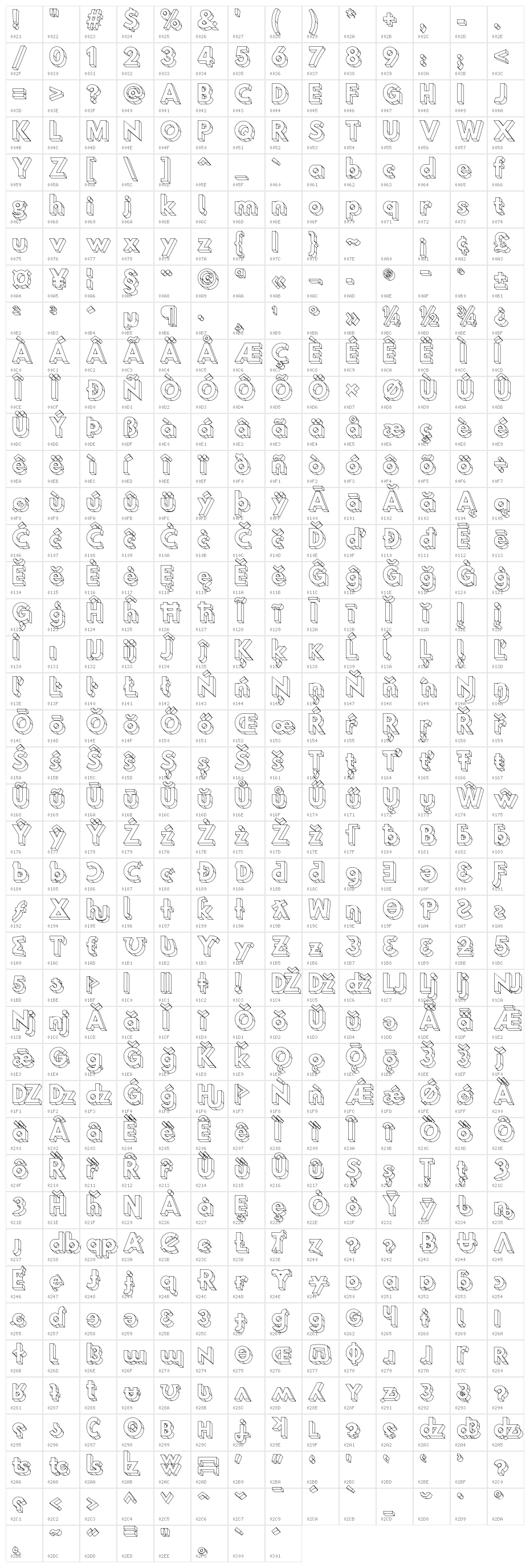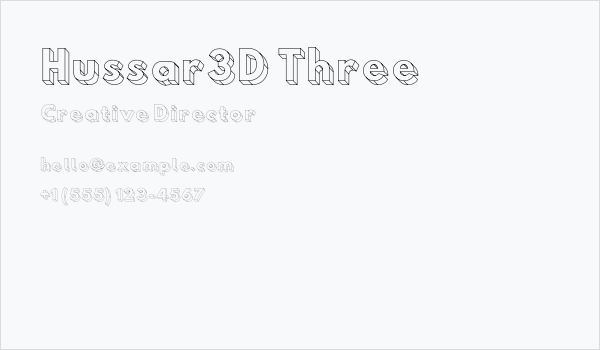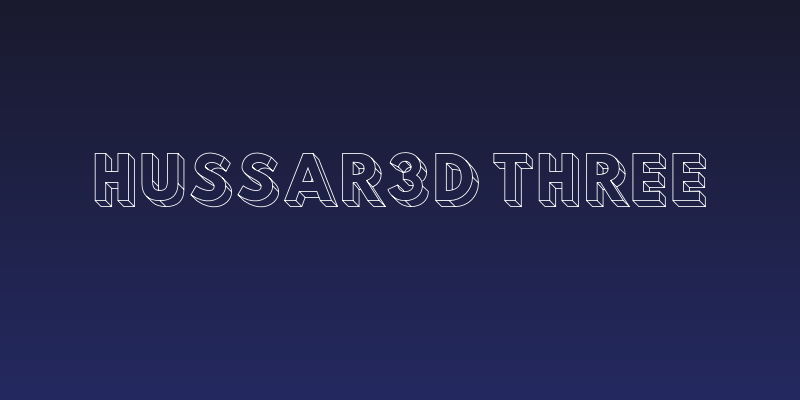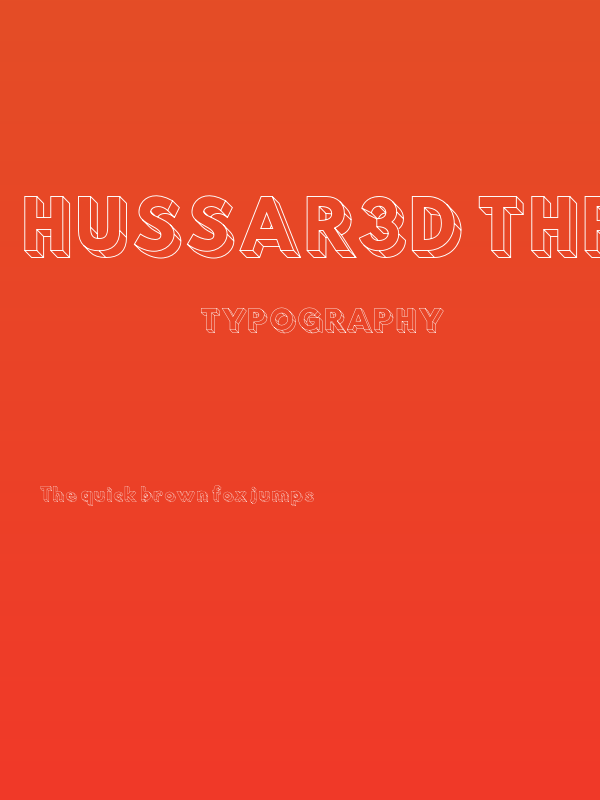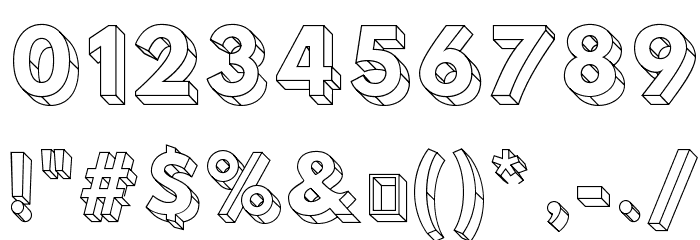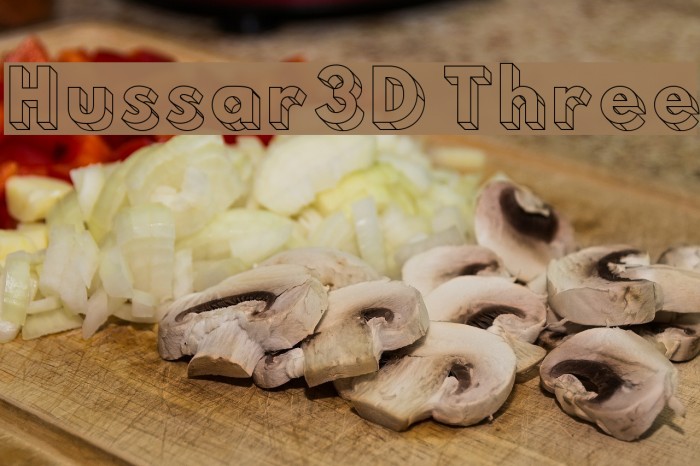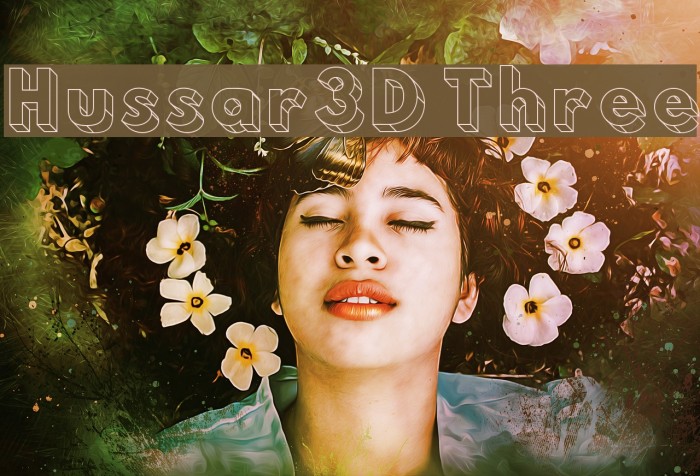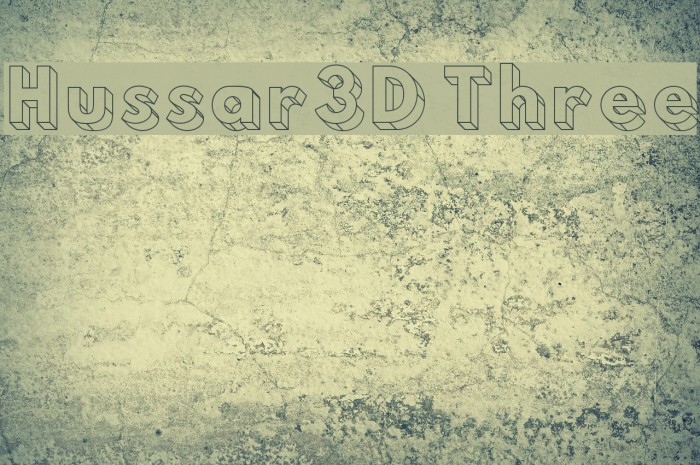
Hussar3D Three Font
Hussar3D Three Description
This font features a bold, three-dimensional style with a geometric and modern aesthetic. The characters are outlined with a shadow effect that gives them a distinct 3D appearance, making them stand out prominently. The uppercase and lowercase letters maintain a consistent style, with clean lines and sharp angles. The numerals and special characters follow the same design principles, ensuring uniformity across all glyphs. This font is particularly eye-catching and is designed to grab attention with its unique visual depth.